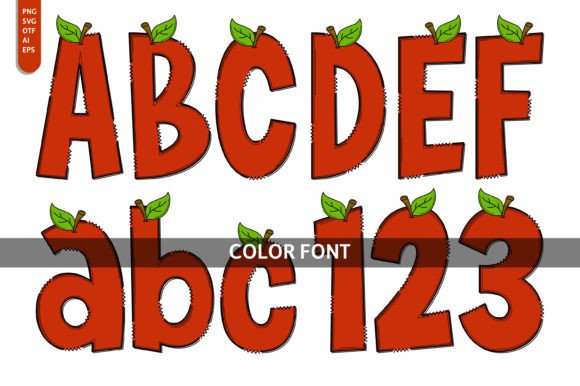
Enter a world of creativity and wonder with the Red Apple Font Family, a playful and artistic collection of color fonts that will ignite your imagination and leave you breathless. Designed by Imagination Switch, these fonts are crafted with the utmost care and attention to detail, ensuring they are not just letters on a page but works of art that come to life.
With their vibrant colors and captivating designs, the Red Apple Fonts are perfect for adding a touch of whimsy and joy to any project. Picture your designs adorned with the playful curves and bold strokes of these fonts, creating a visual symphony that will capture hearts and leave a lasting impression.
These fonts are not just visually stunning; they are also incredibly versatile, allowing you to explore endless creative possibilities. Whether you are a seasoned designer or just starting your artistic journey, the Red Apple Fonts will be your trusty companion, guiding you towards unique and awe-inspiring designs.
Use these fonts to create personalized greeting cards that burst with warmth and charm, design eye-catching posters that demand attention, or craft invitations that exude elegance and style. Unleash your inner artist and let the Red Apple Fonts transform your designs into masterpieces that will leave everyone in awe.
But what truly sets the Red Apple Fonts apart is their ability to evoke emotions and create connections. Each font carries a unique personality, from the cheerful and upbeat to the tranquil and serene. As you work with these fonts, you will find yourself immersed in a world of emotions, effortlessly conveying the intended message through your designs.
So, embark on this creative journey with the Red Apple Font Family, and let your imagination soar to new heights. Whether you are a seasoned designer or just beginning to explore the world of fonts, these fonts will be your faithful companions, helping you create designs that are not just visually stunning but also emotionally resonant.